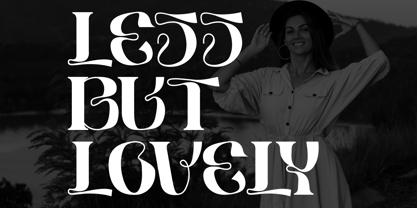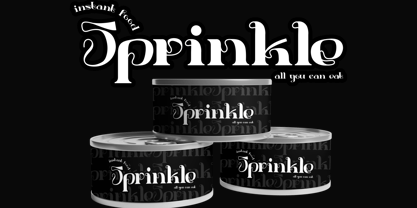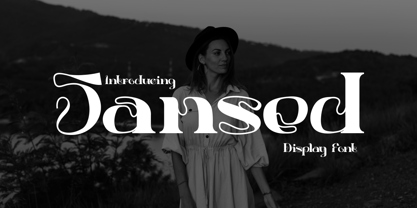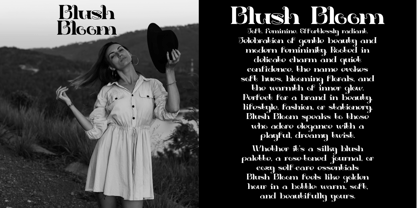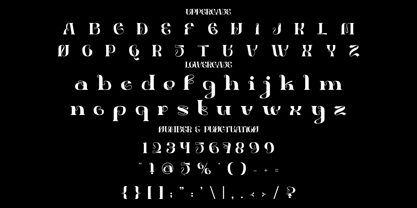
Sansed
by Shanaf
The Sansed Font Family was designed by Yesie Erma Yunita and published by Shanaf. Sansed contains 1 styles. More about this family
Sansed Display Font is a modern serif typeface that merges elegance with bold visual confidence. Each character features refined high contrast strokes and artistic curves, giving the font a graceful yet strong personality. Its distinct swashes, notably on letters like "S", "J", and "L", add a sophisticated flair perfect for premium product design. The alternating stroke thickness offers a dramatic rhythm in text layouts, allowing it to shine in large scale formats such as logos, magazine covers, packaging, and fashion labels. The uppercase set is commanding yet artistic, while the lowercase letters balance creativity and legibility—ideal for luxury editorials or branding identity.
This typeface is crafted for designers aiming to make a bold, upscale visual impact. Its ornamental yet minimalist nature ensures versatility across creative outputs, from cosmetic labels and invitation cards to boutique packaging and portfolio titles. Sansed Display Font is your ideal partner when creating visual storytelling that feels timeless, upscale, and curated. Enhance your creative projects with typography that demands attention and evokes elegance without compromising clarity.